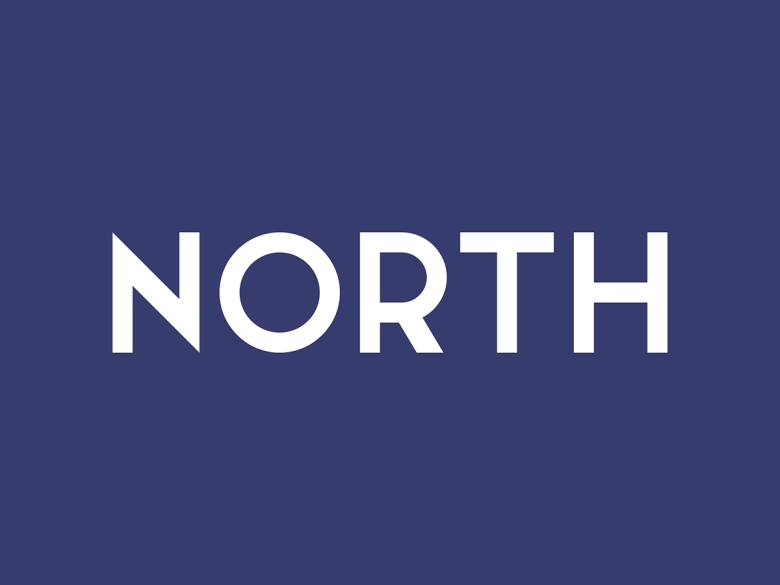
North Font
North Font được thiết kế và chia sẻ bởi Alexander Sheliketo. North is a simple geometric sans-serif typeface. North perfect for logo design, headlines, posters, editorial works and so on.
North Sans Serif Font